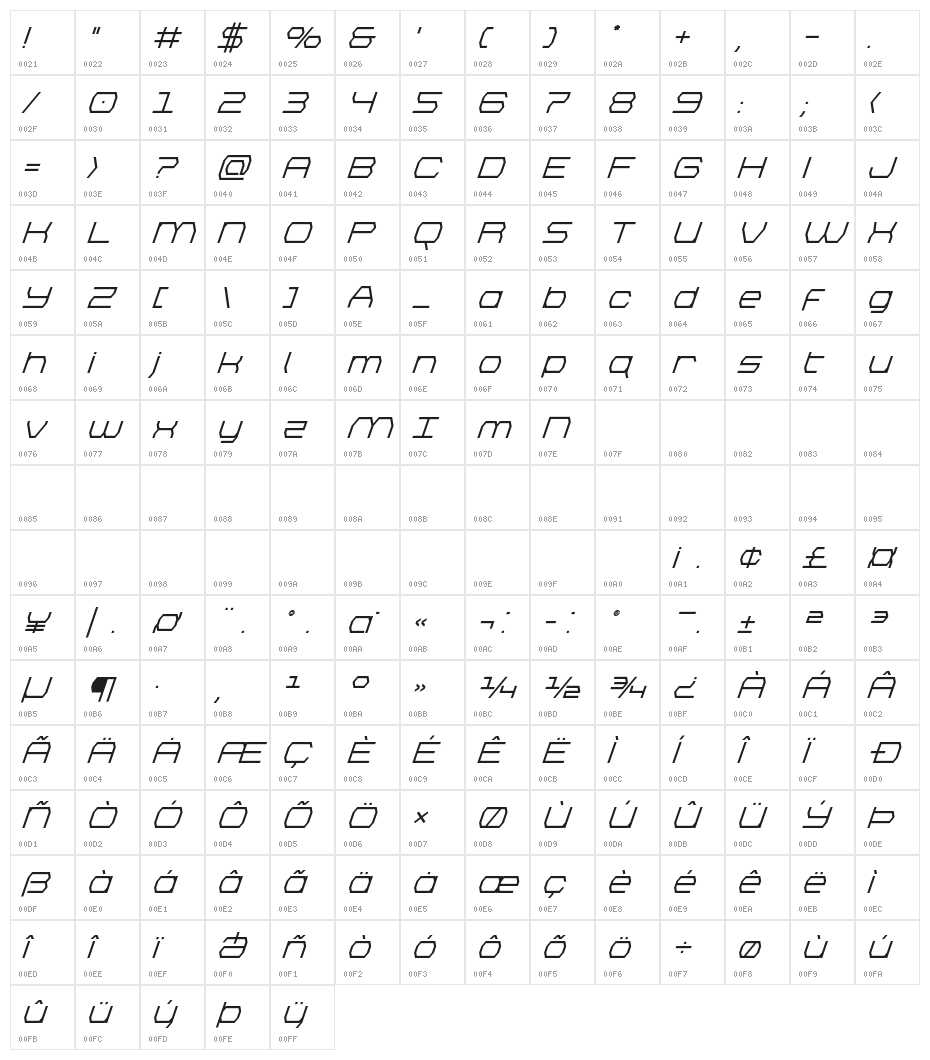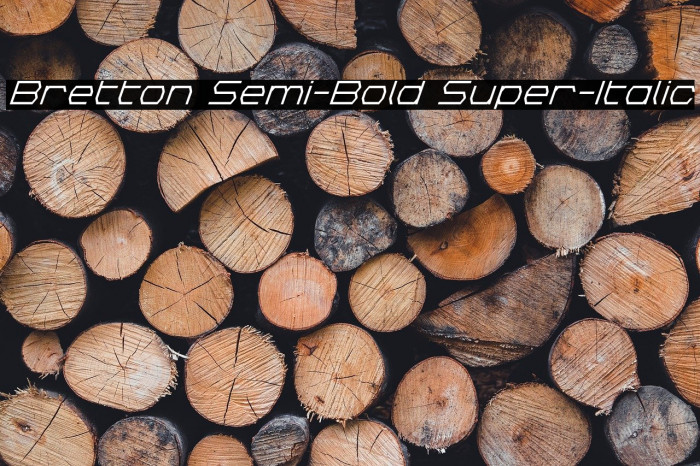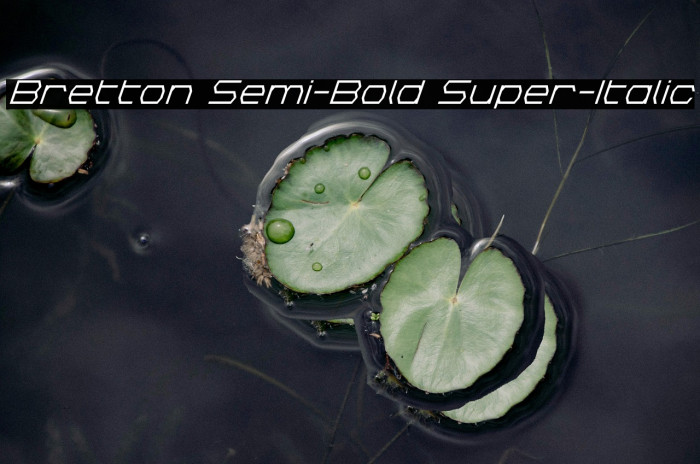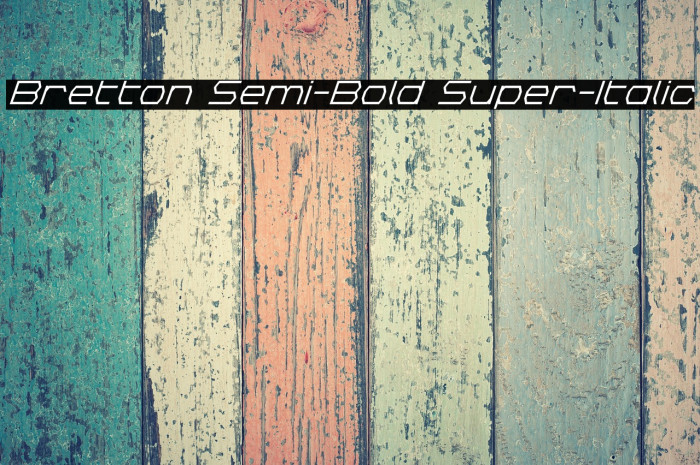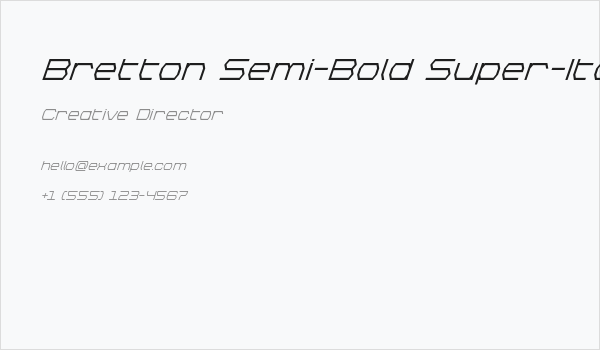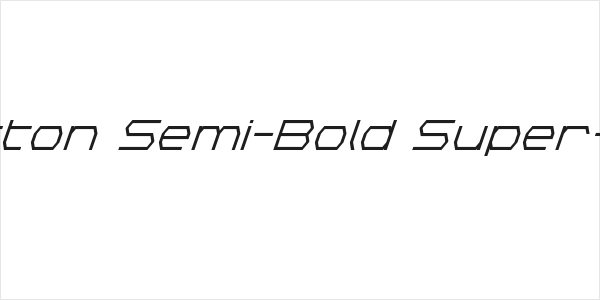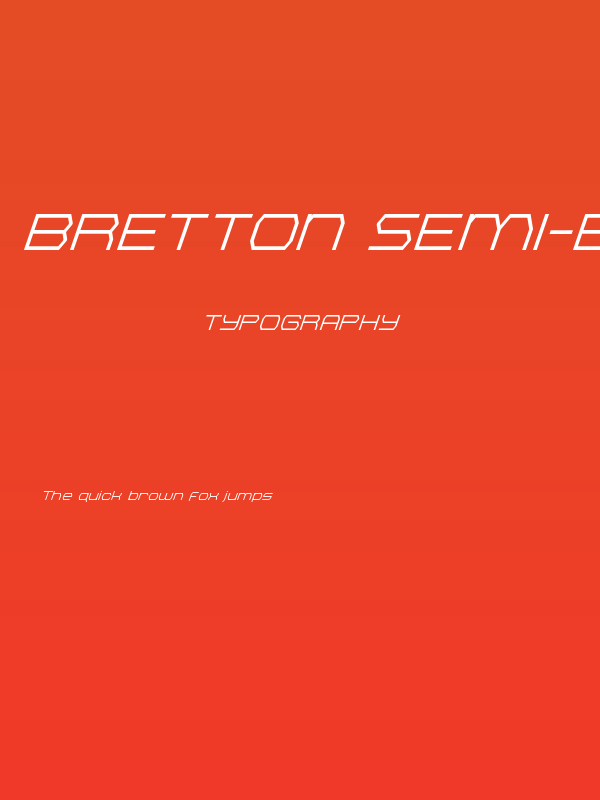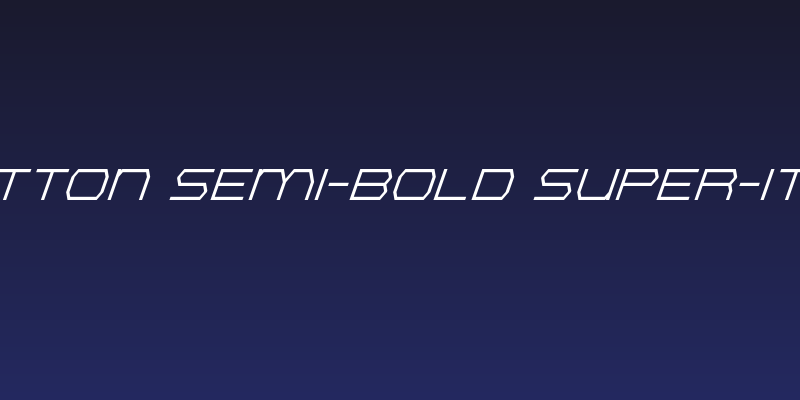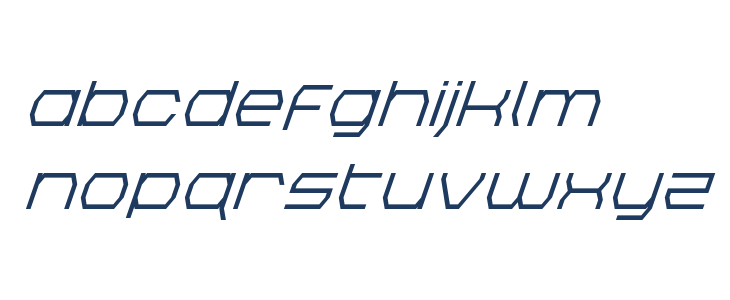
Bretton Semi-Bold Super-Italic Font
Bretton Semi-Bold Super-Italic Description
This font features a modern and dynamic style with a strong geometric influence. The characters are slightly condensed, giving it a sleek and streamlined appearance. The italicized form adds a sense of motion and energy, making it suitable for contemporary designs. The semi-bold weight provides a balanced contrast, ensuring readability while maintaining a bold presence. The angular and sharp edges of the characters contribute to its futuristic aesthetic, making it ideal for projects that require a cutting-edge look.
| Use Case | Headlines, Logos, Digital Interfaces |
| Proposed Projects | Ideal for tech branding, modern advertising, futuristic posters, and digital interfaces. |